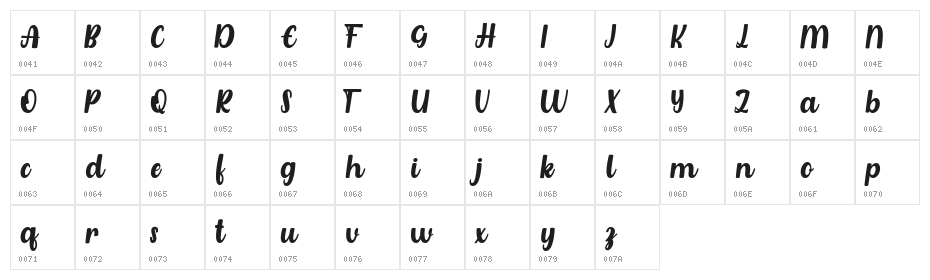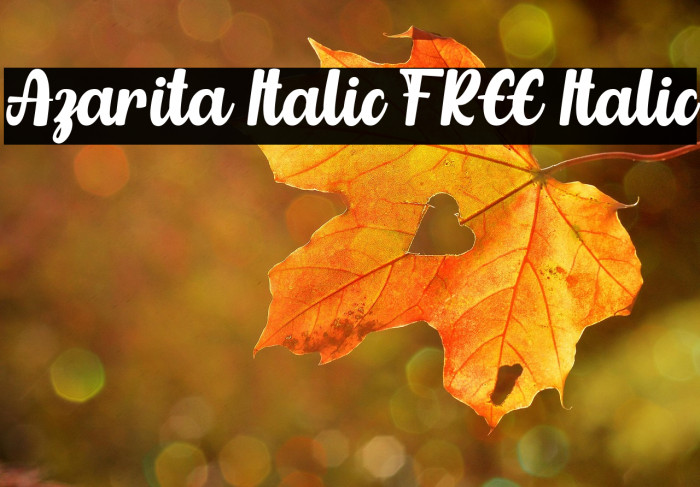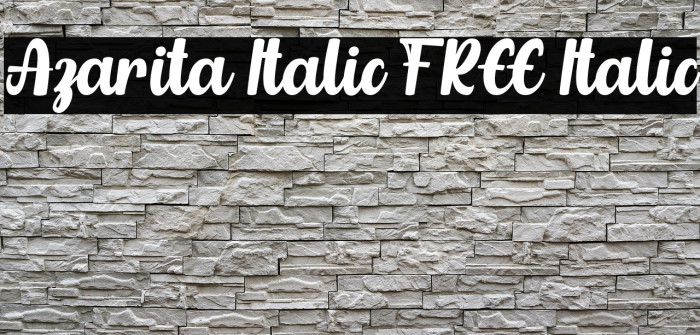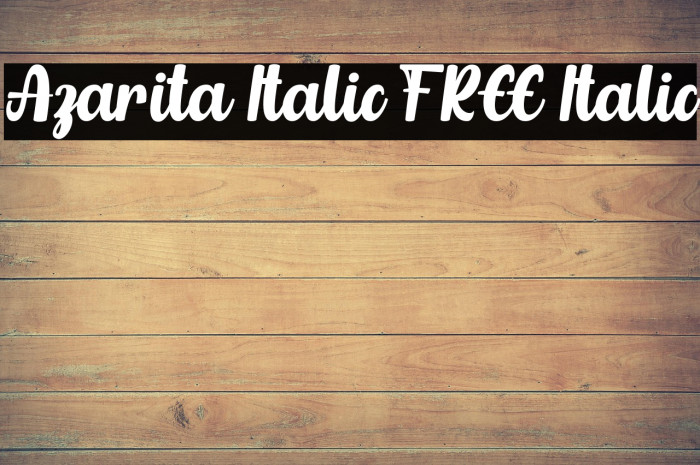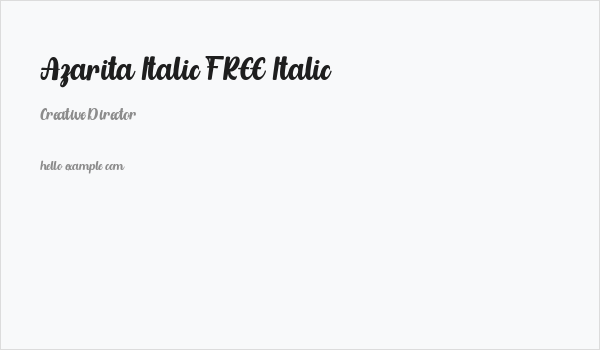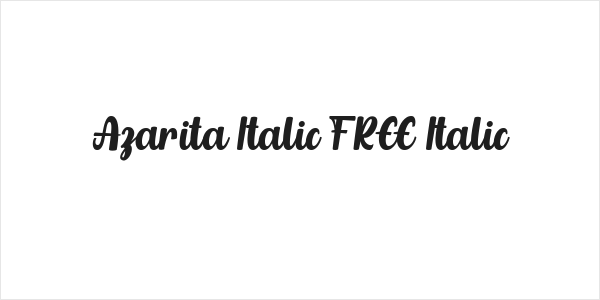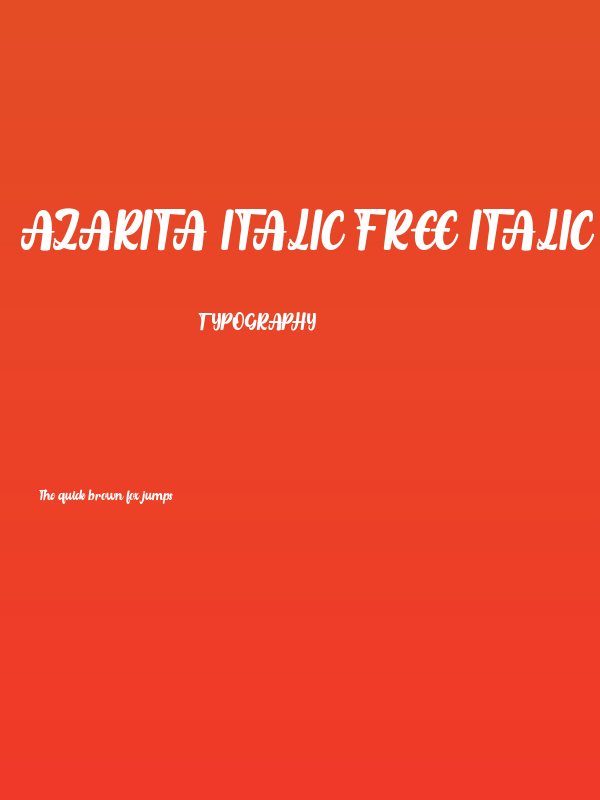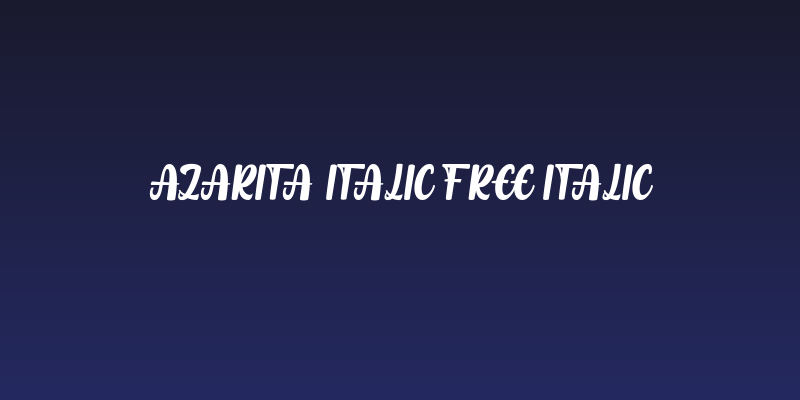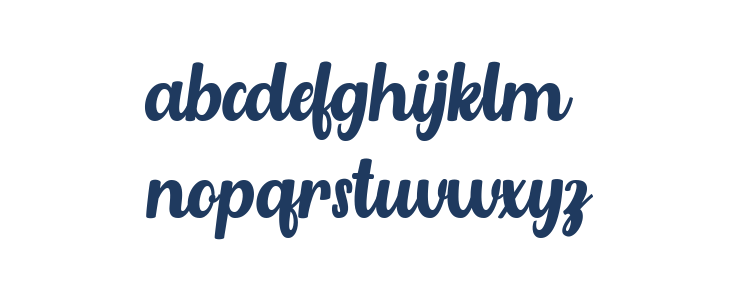
Azarita Italic FREE Italic Font
Azarita Italic FREE Italic Description
This font features a bold and expressive script style with a flowing, cursive design. The letters are interconnected, creating a sense of movement and elegance. The uppercase characters are particularly striking, with unique flourishes and loops that add a decorative touch. The lowercase letters maintain a consistent style, complementing the uppercase with their smooth curves and rounded forms. The numbers and special characters are designed to match the overall aesthetic, ensuring a cohesive look across all text elements. This font's playful yet sophisticated appearance makes it suitable for a variety of creative projects.